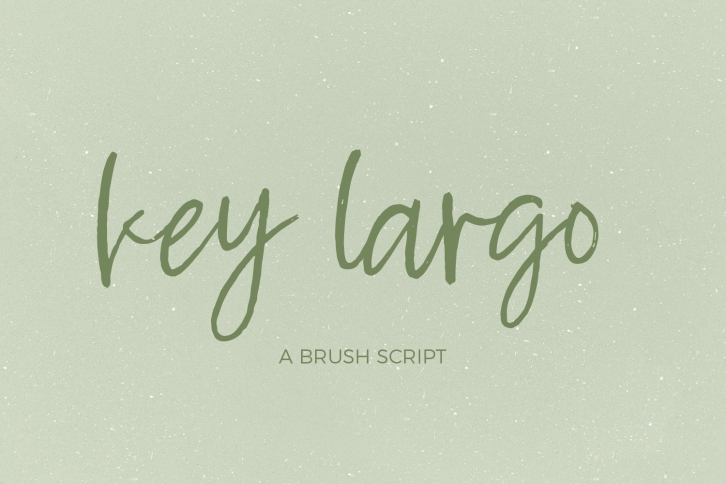
Key Largo Brush Script is a trendy and unique font with an authentic style. It was designed by BeckMcCormick and it's a great choice for creative people who need such a font. It was released on November 25, 2019 and the file size is 13.90 MB. Key Largo Brush Script will add an organic vibe to any design idea!